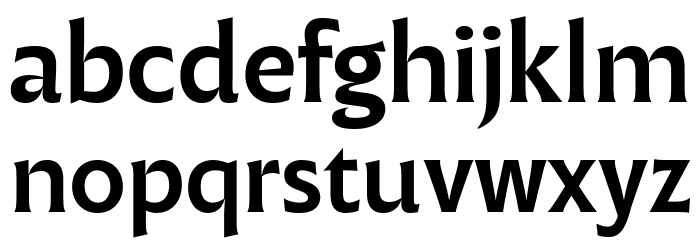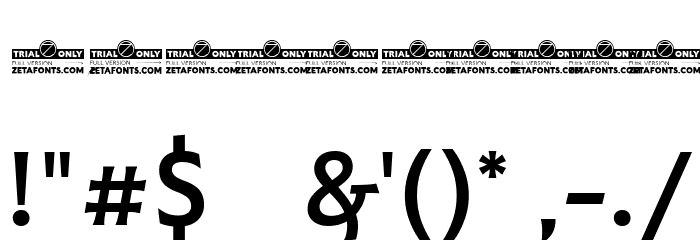
Malik Trial Medium Font
This font exhibits a strong and confident presence with its bold and slightly condensed letterforms. The uppercase characters are well-proportioned, offering a sense of stability and authority. The lowercase letters maintain a harmonious balance, with rounded curves and consistent stroke widths that enhance readability. The numerals are clear and distinct, making them suitable for various applications. Special characters are thoughtfully designed, integrating seamlessly with the overall style. This font's modern aesthetic is both versatile and appealing, making it ideal for a wide range of design projects.
A bold, slightly condensed serif font with a modern and versatile style.